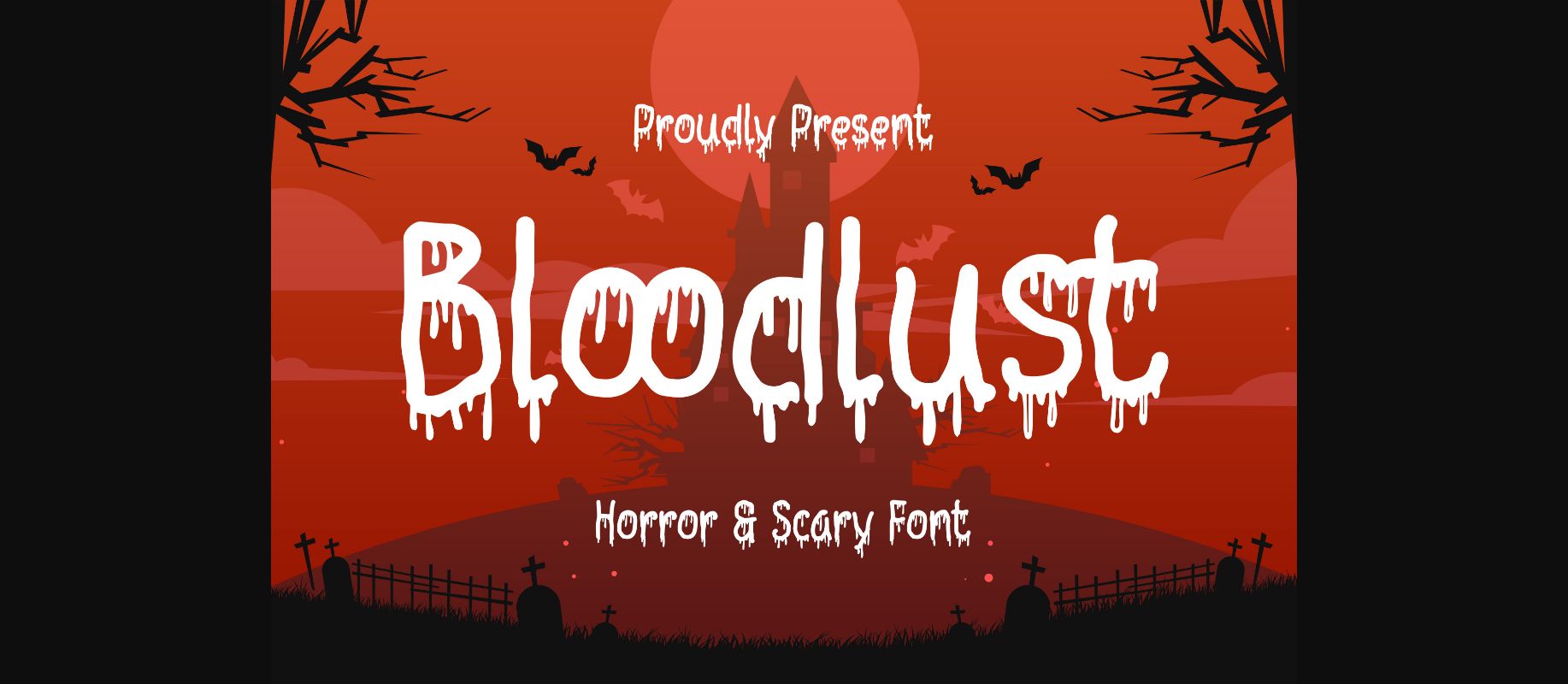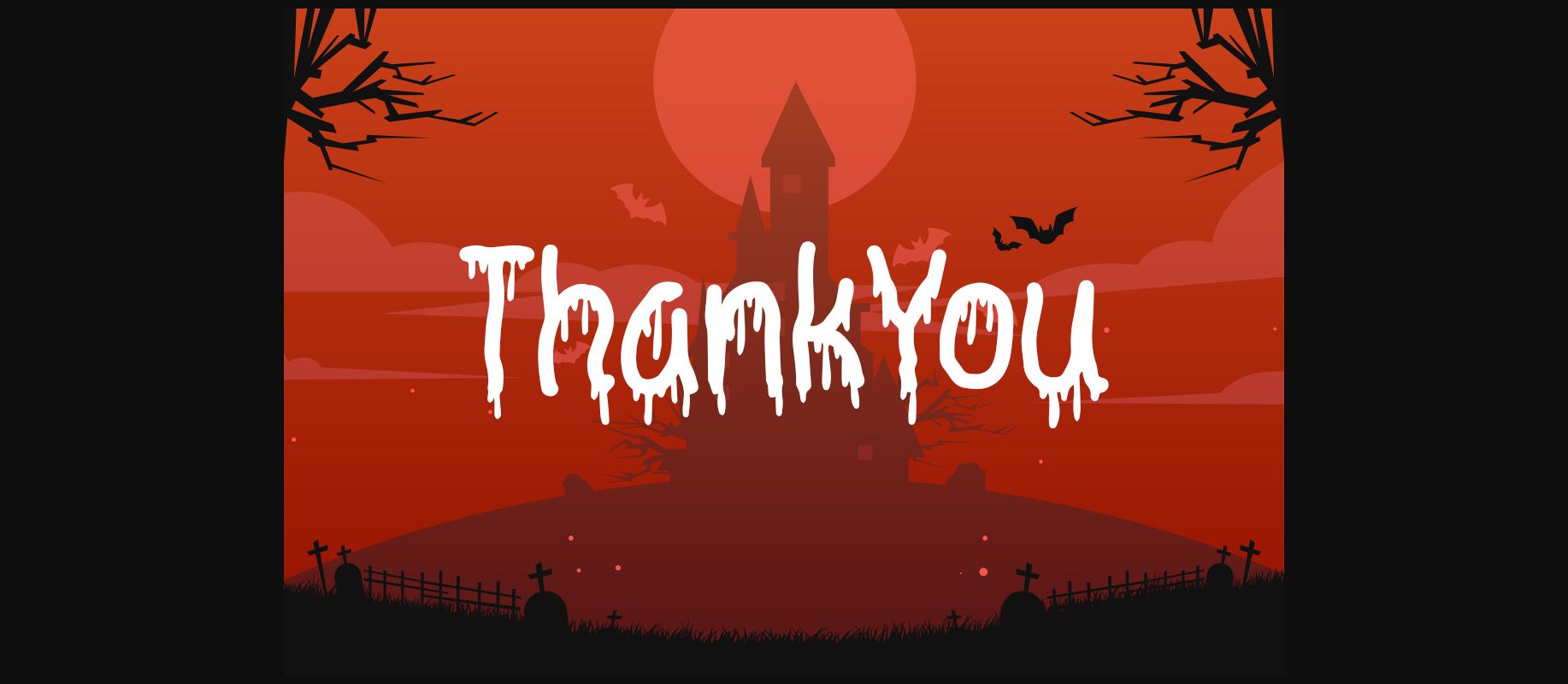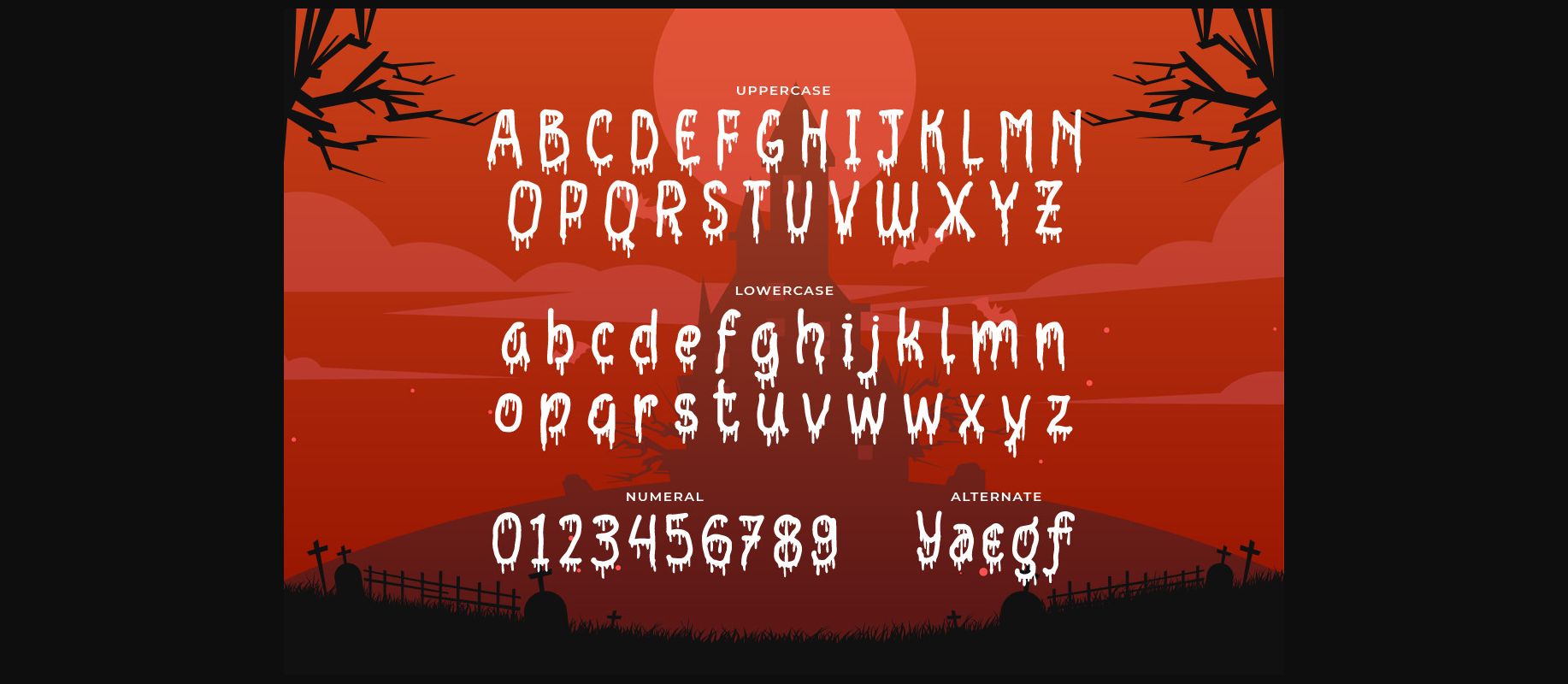
About Bloodlust Font
Introducing Bloodlust – a horror and scary font that will strike fear into the hearts of your audience. This font features a chilling design that is perfect for projects that require a touch of terror and horror.
Bloodlust is a versatile font that can be used for a variety of projects, including book covers, posters, branding, packaging, logos, and more. Its ominous and macabre design makes it a great choice for designs that need to create a spine-tingling atmosphere.